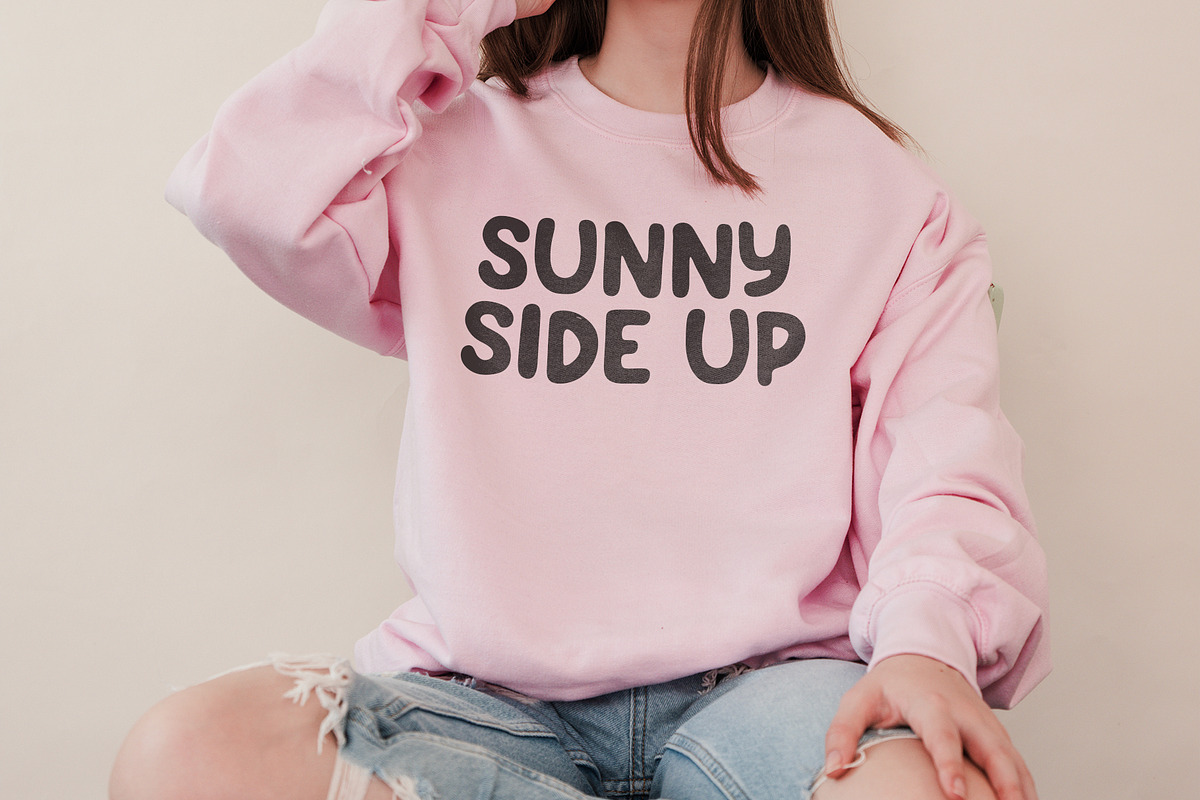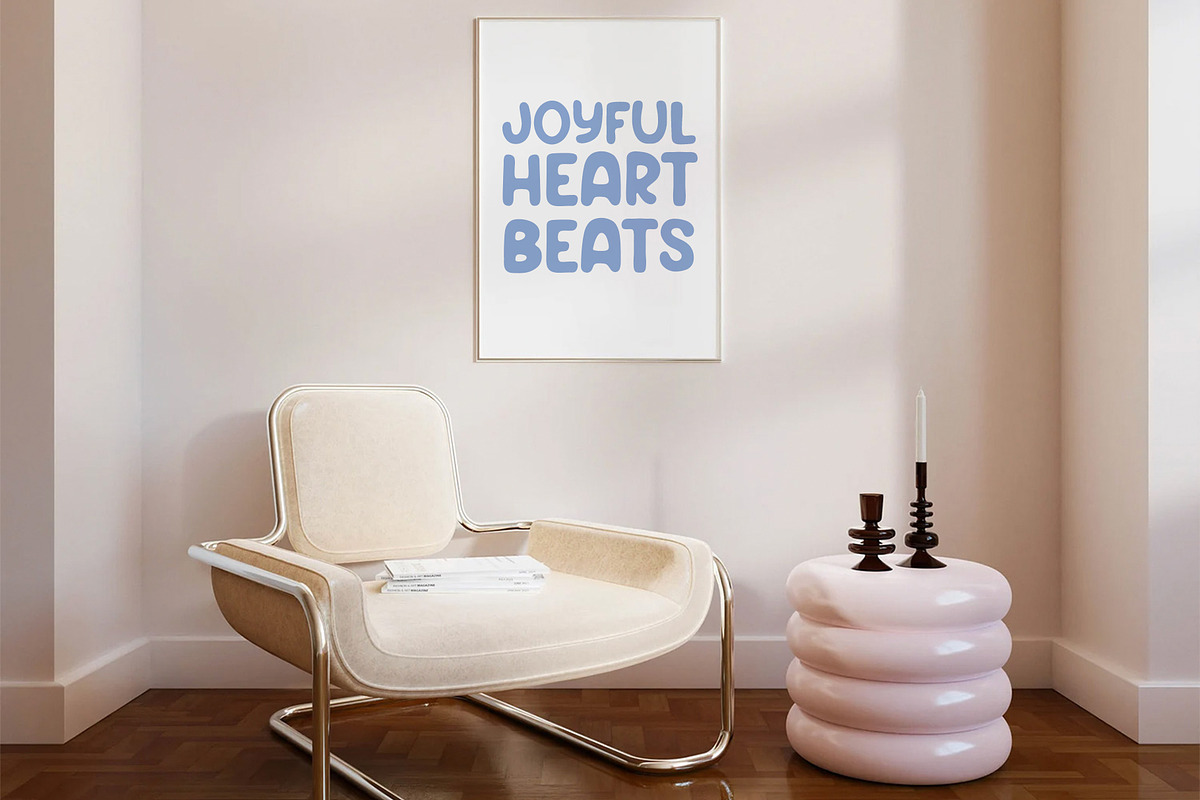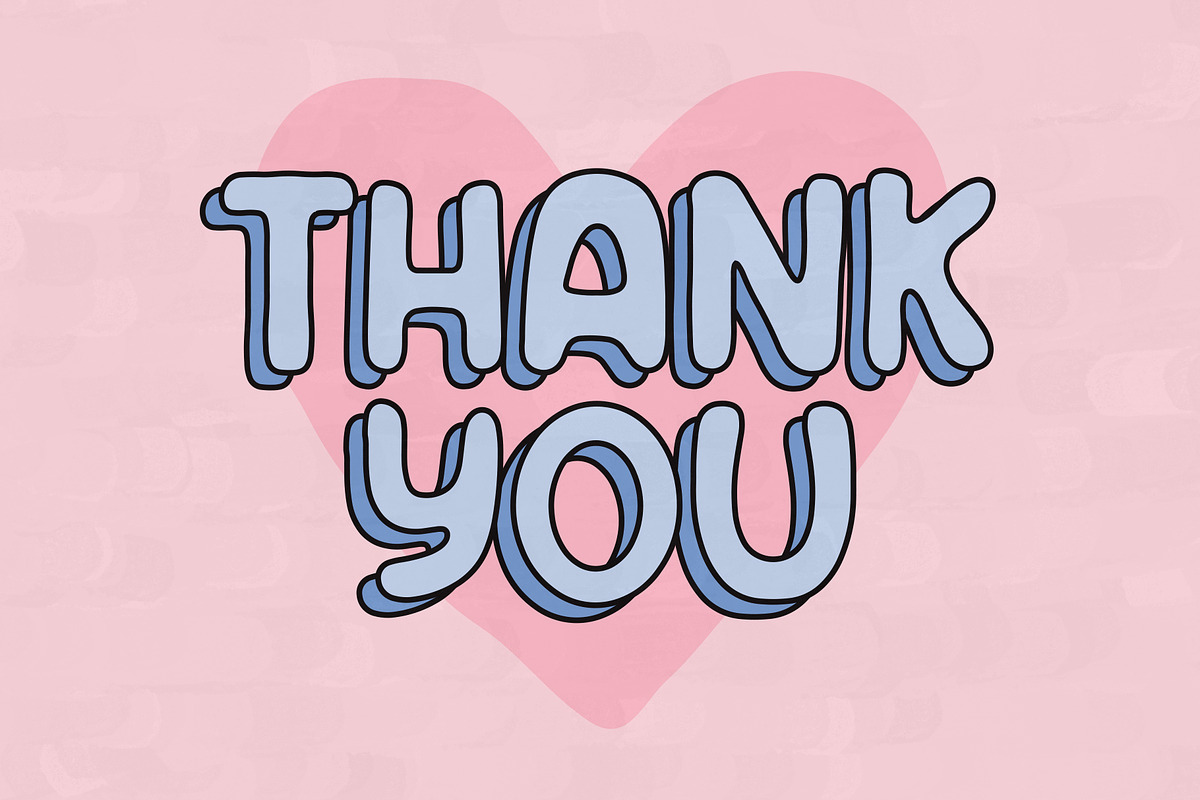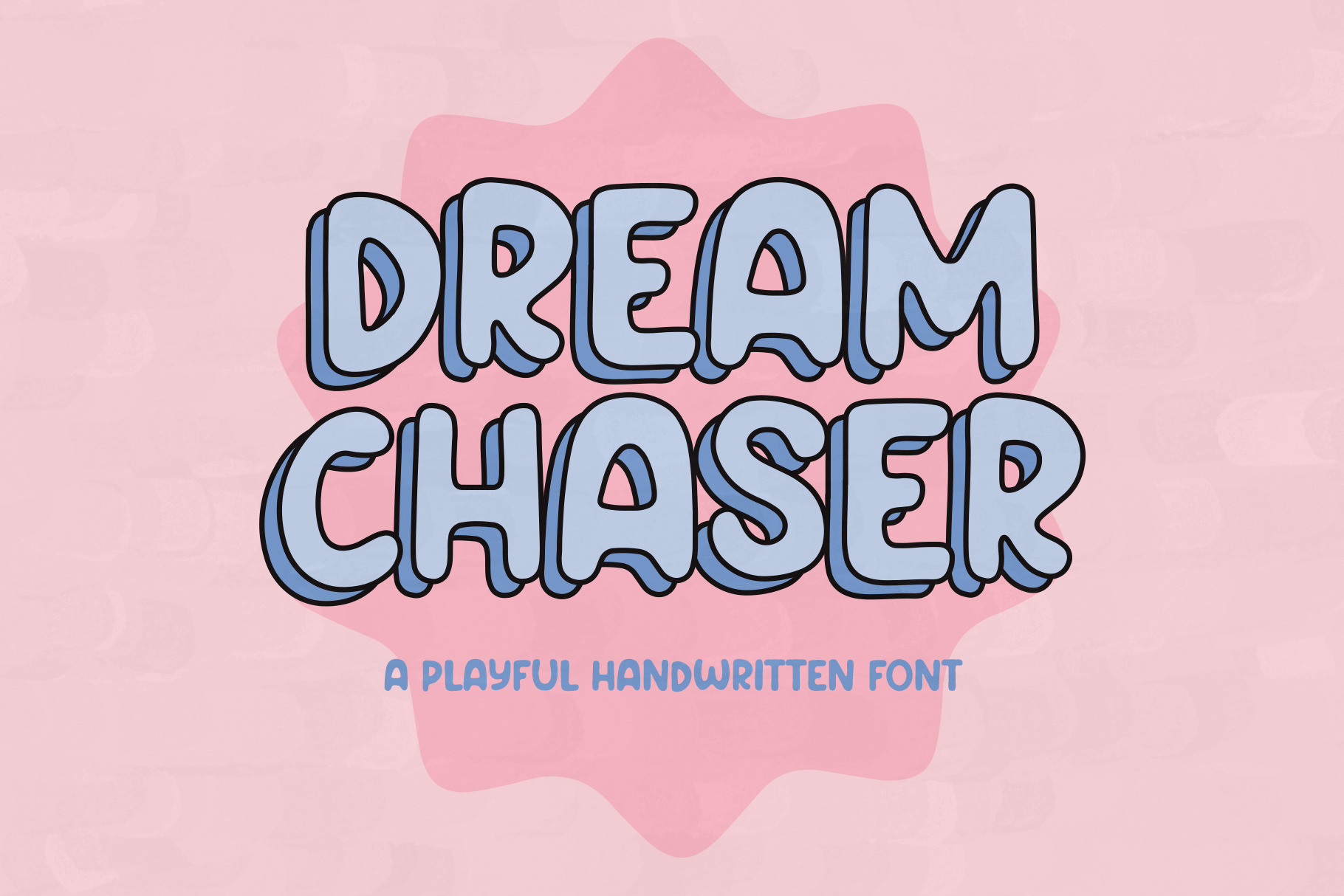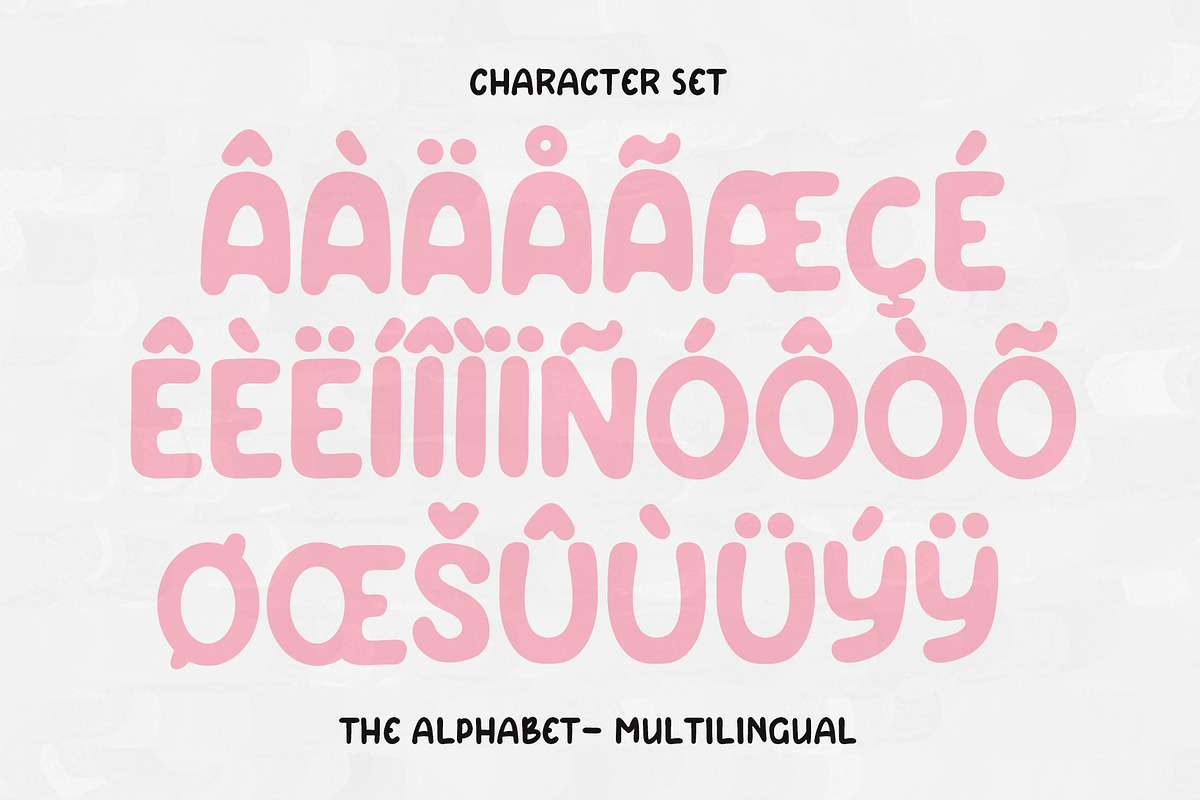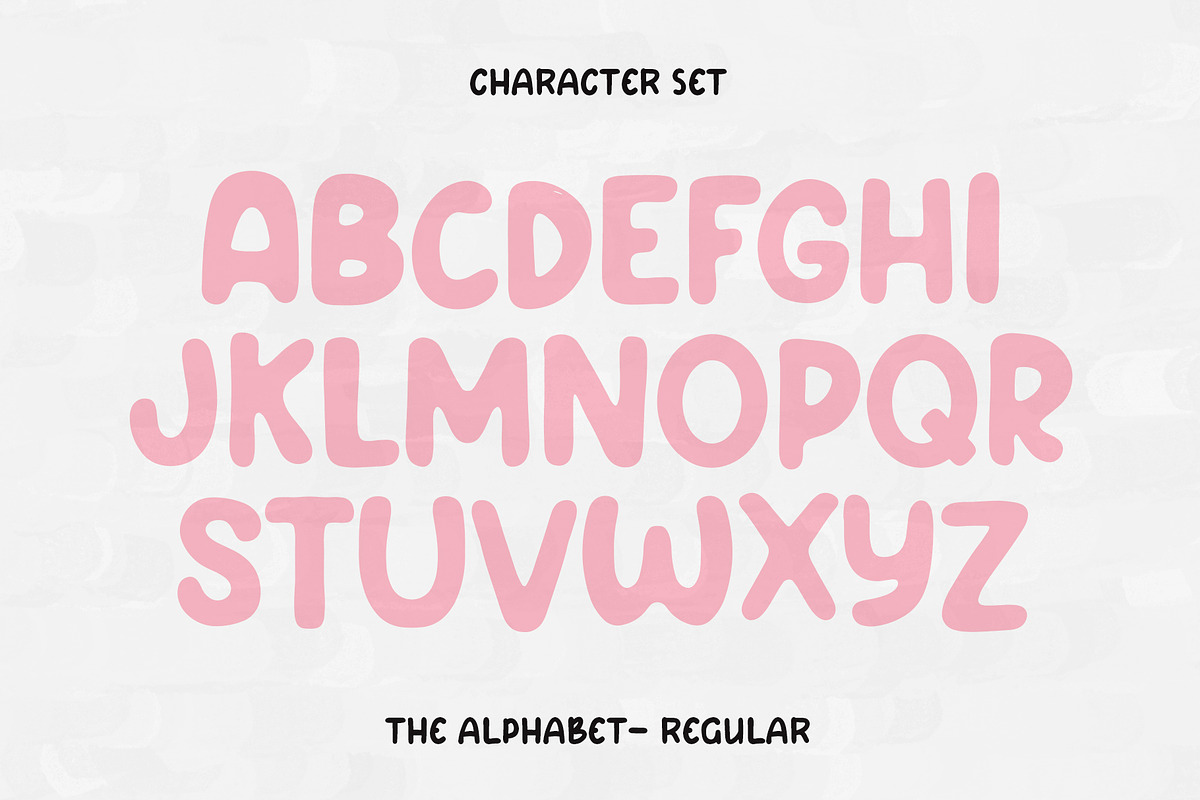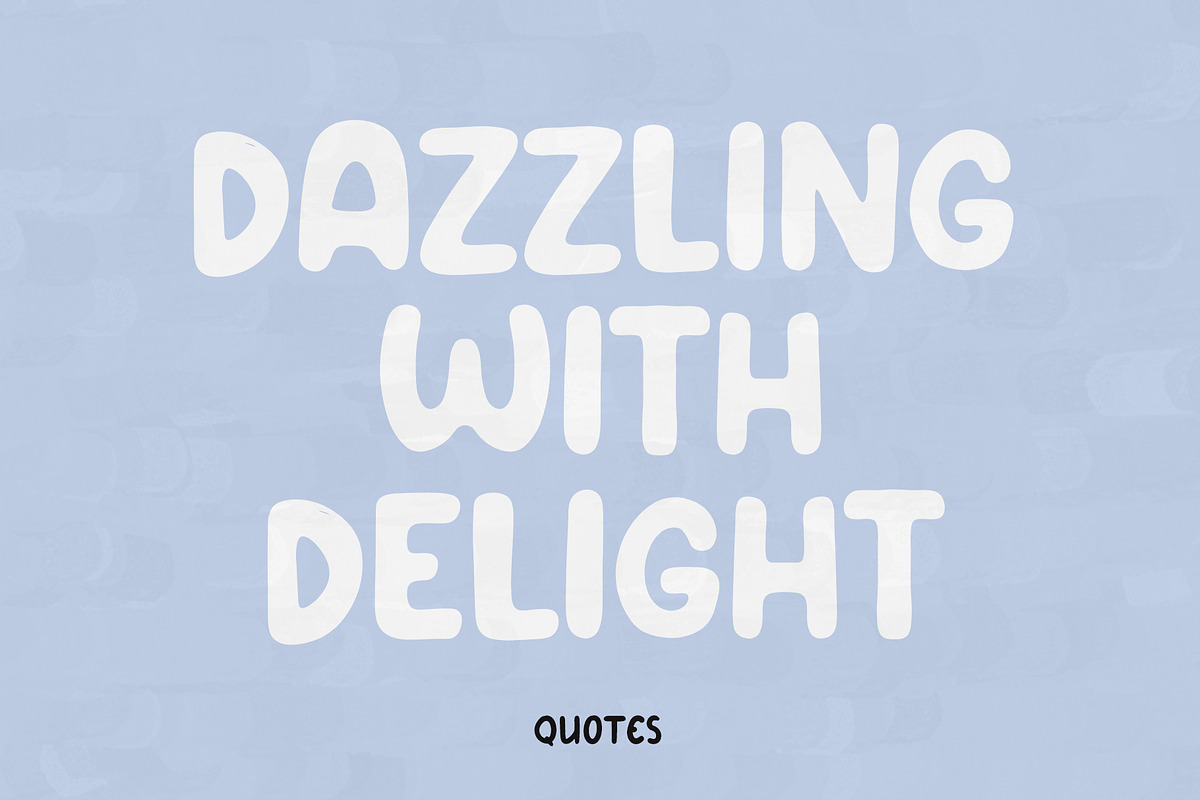
Dream Chaser Font - Sans Serif Font
Dream Chaser is a delightful Sans Serif font that effortlessly combines a playful handwritten style with a sleek, modern aesthetic. This typeface available in SVG format, compatible with advanced tools such as Cricut and Glowforge, and for use in Procreate. Its whimsical yet sophisticated design makes it the perfect choice for those seeking a font that exudes both creativity and professionalism. The characters flow seamlessly, with each letter crafted to evoke a sense of lightheartedness and imagination.